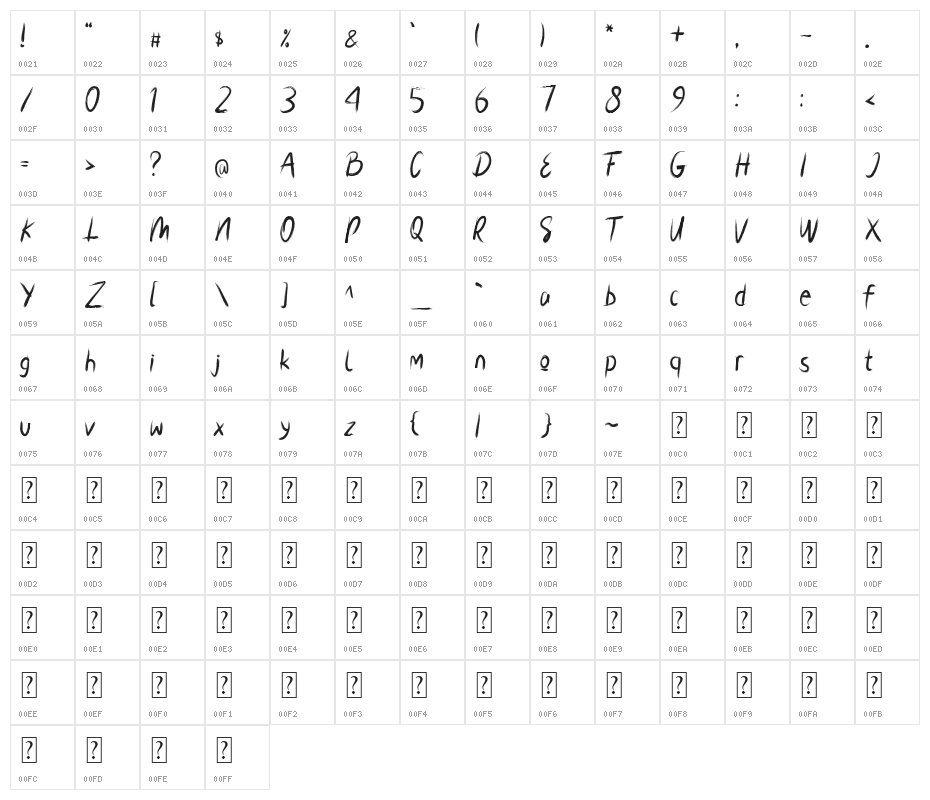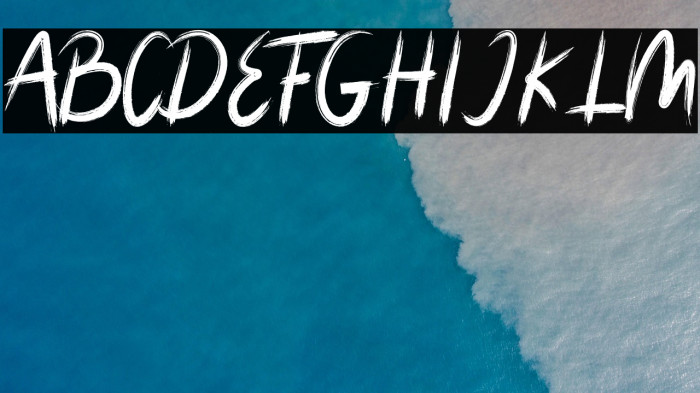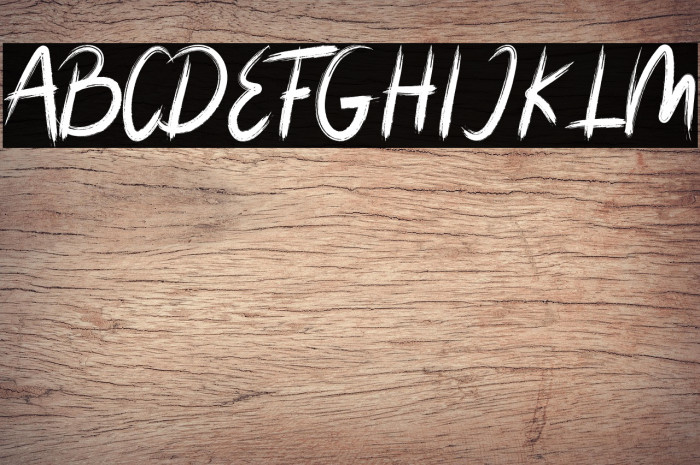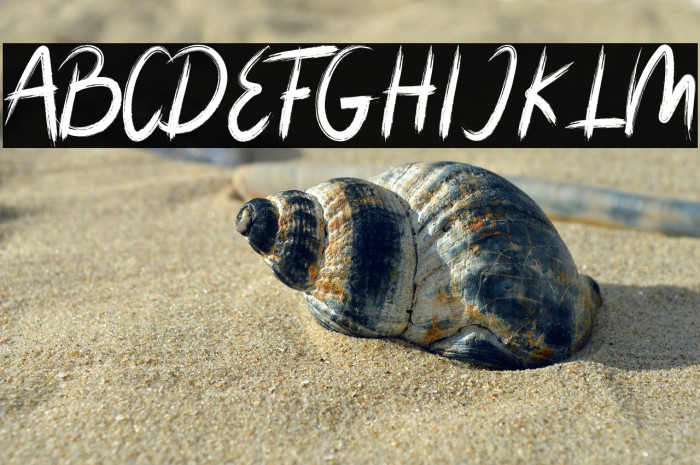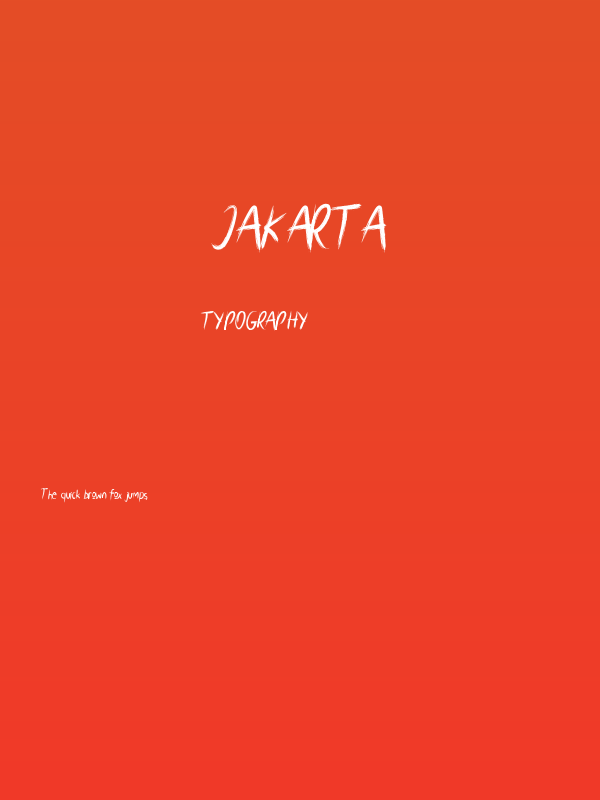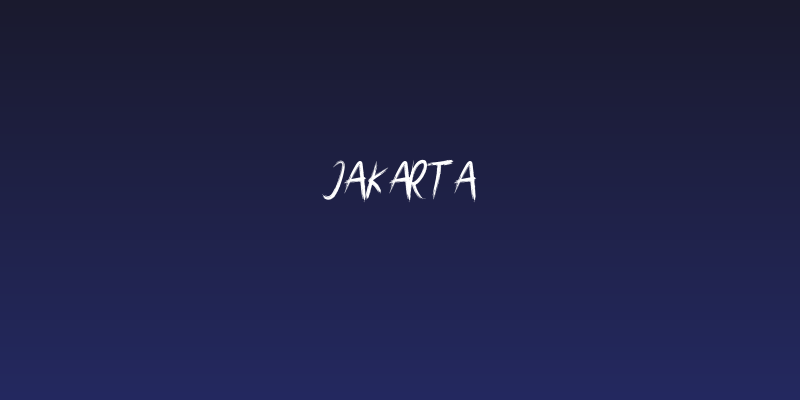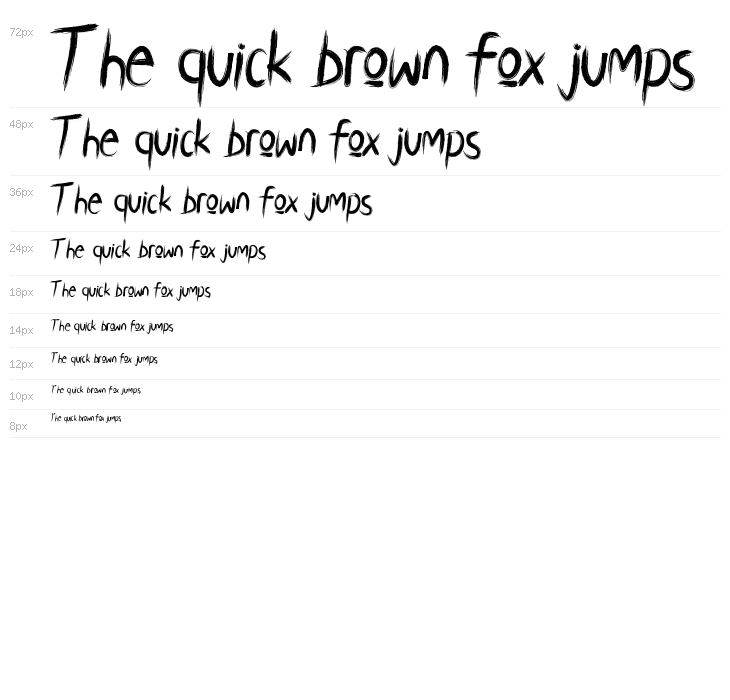
Jakarta Font
Jakarta Description
This font features a dynamic and energetic brush style, characterized by its bold and expressive strokes. The letters have a hand-drawn appearance, with varying thickness that adds a sense of movement and fluidity. The uppercase and lowercase letters maintain a consistent style, with slightly exaggerated curves and angles that enhance its artistic flair. The numerals and special characters follow the same expressive design, making the font suitable for creative and informal applications. Its unique style makes it stand out, perfect for projects that require a personal and artistic touch.
| Use Case | Headlines, Logos, Artistic projects |
| Proposed Projects | Ideal for posters, branding, artistic projects, and any design requiring a bold, personal touch. |